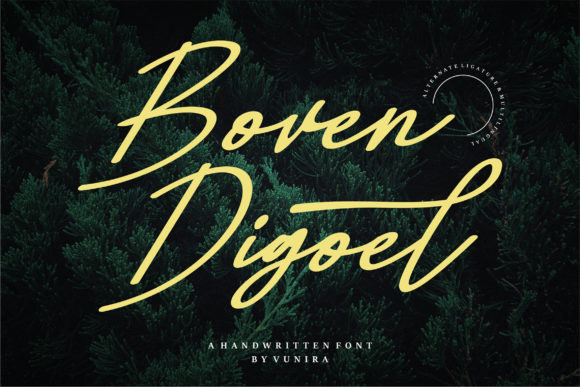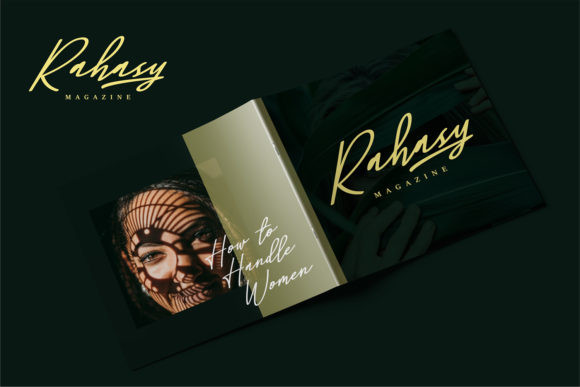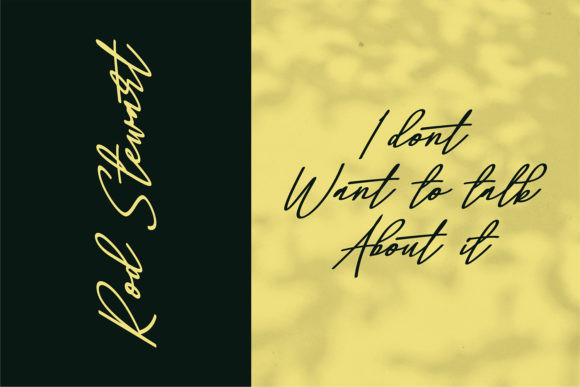
Boven Digoel Font
Boven Digoel is a flowing handwritten font, described by an elegant touch, perfect for your favorite projects. Fall in love with its incredibly distinct and timeless style and use it to create spectacular designs!